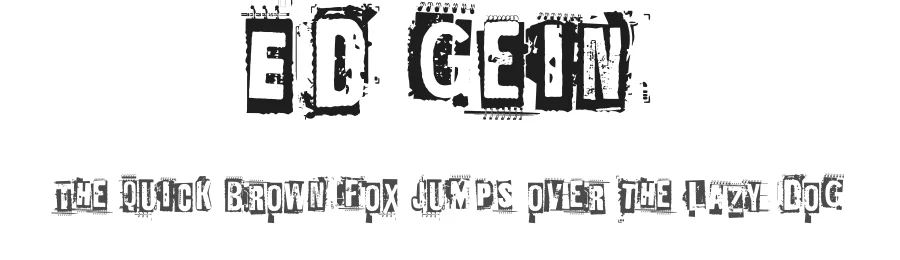
About Punkassbitch Font
Punkassbitch is a decorative font designed by MGM Designs. It includes 75 glyphs, a regular weight, TTF (TrueType) format, and 91 languages. Punkassbitch is free to download; check the license details on this page before commercial use. Decorative fonts like Punkassbitch work best for logos, posters, packaging, and standout headlines.
Punkassbitch Font is a decorative font that shines as a display or heading face. Pair it with a clean sans-serif or serif font for body text β the contrast creates a clear hierarchy while the two styles stay balanced and easy to read.
Punkassbitch Font is a decorative typeface by MGM Designs, ideal for logos, invitations, branding, and creative projects.